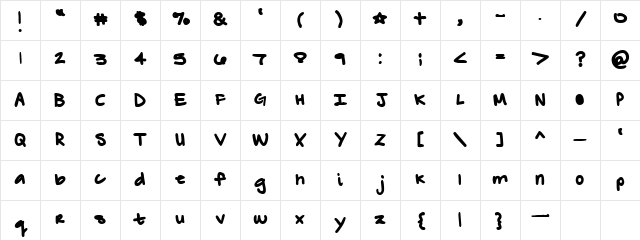
ZebraFlames Bold Regular
Design Context for ZebraFlames Bold
ZebraFlames Bold is a composed and adaptable typeface that performs quietly and consistently across a wide range of design contexts. Its bold stroke weight gives it real presence on the page.